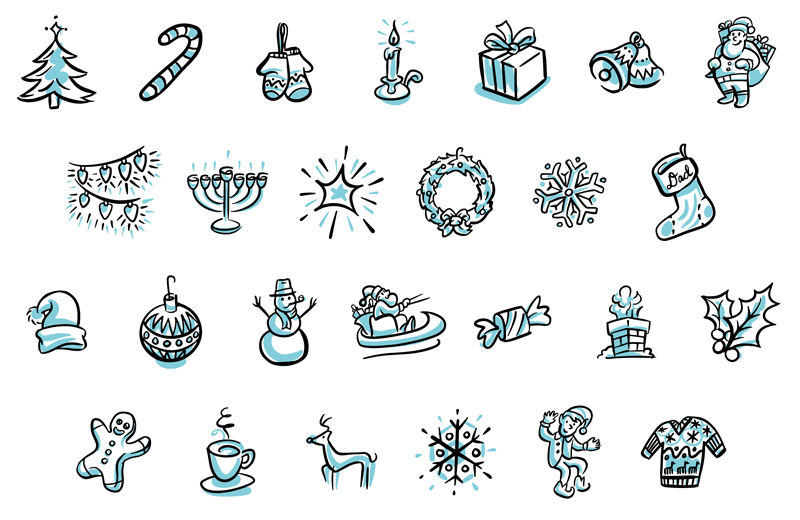
Note by Ben Dunkle | |
26 fun doodles for your next December holiday creation. Type lowercase letters for the outlines. Copy and paste behind. Change to all caps for the fills. Change the fills to a december-y color like light blue for the finishing touch! |